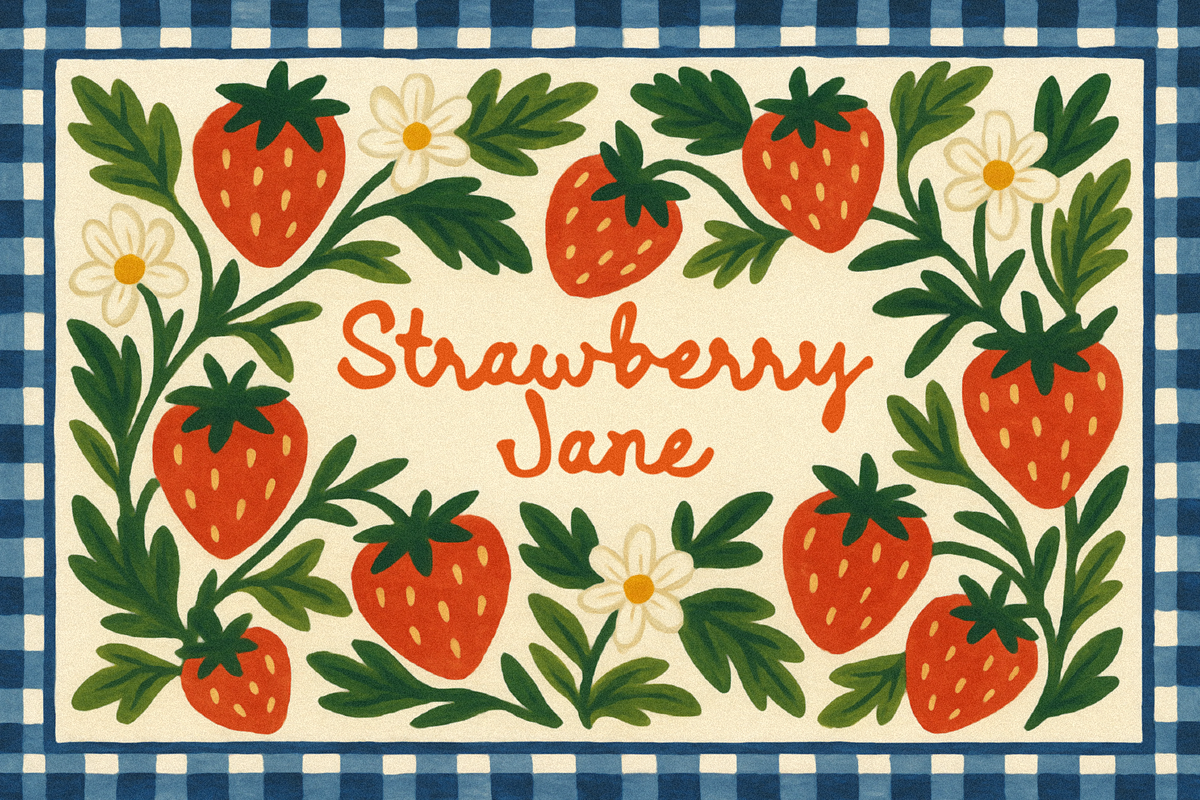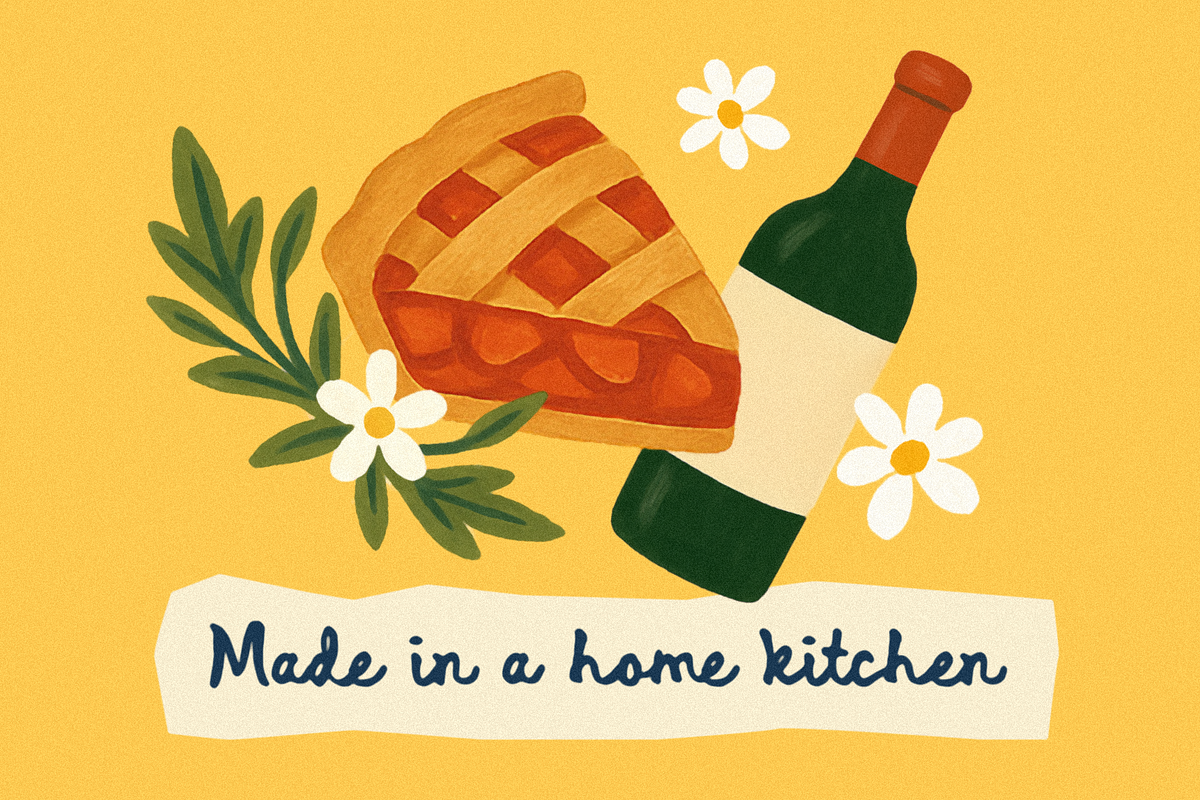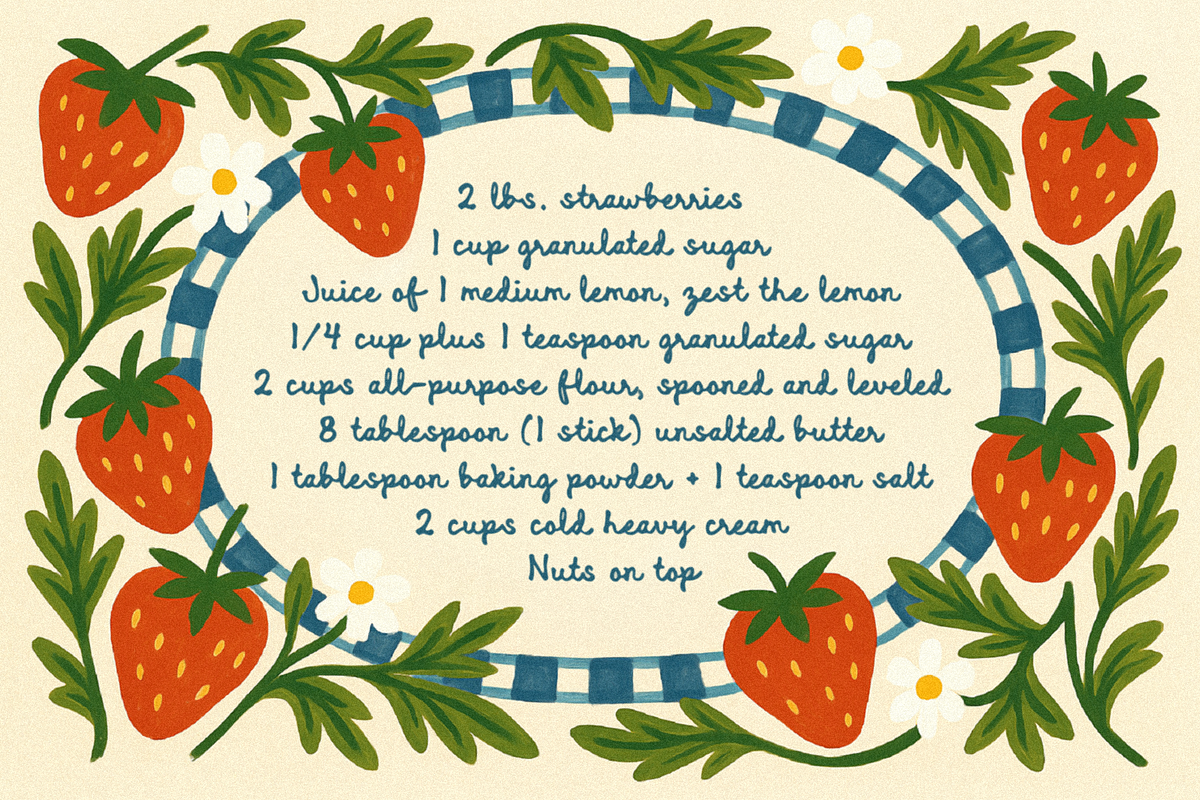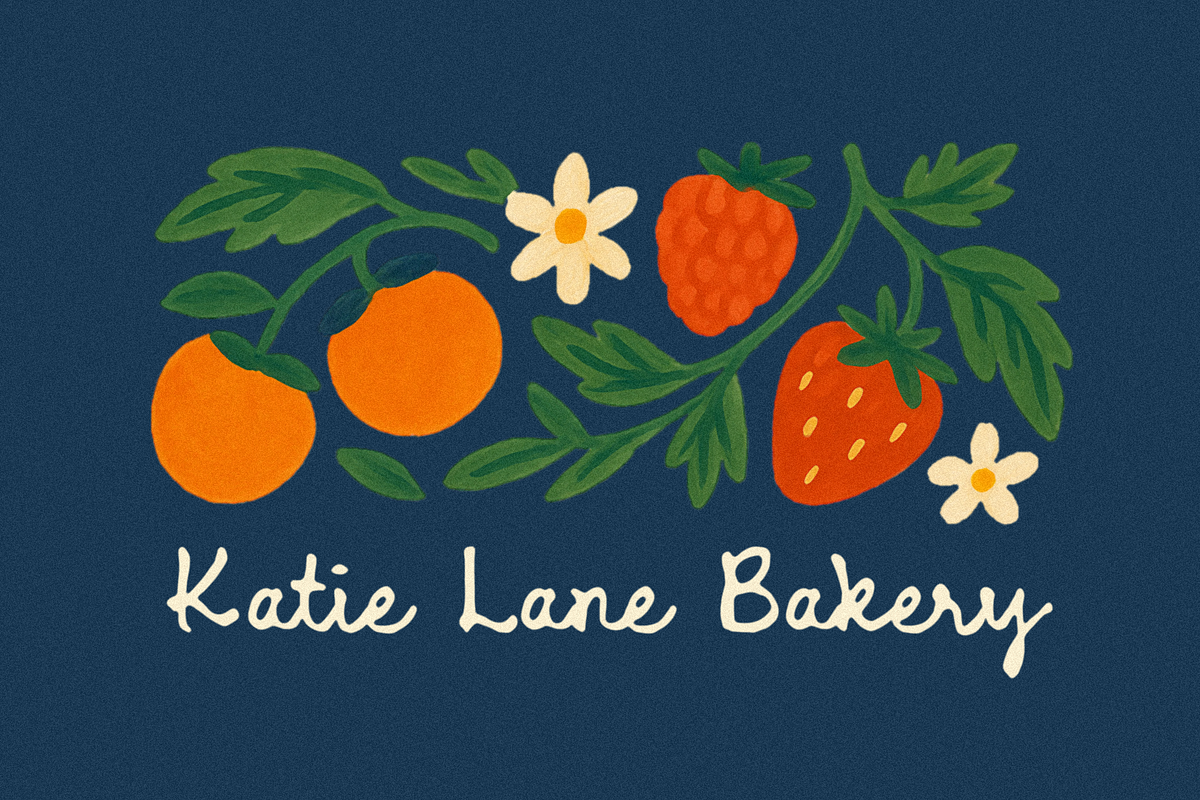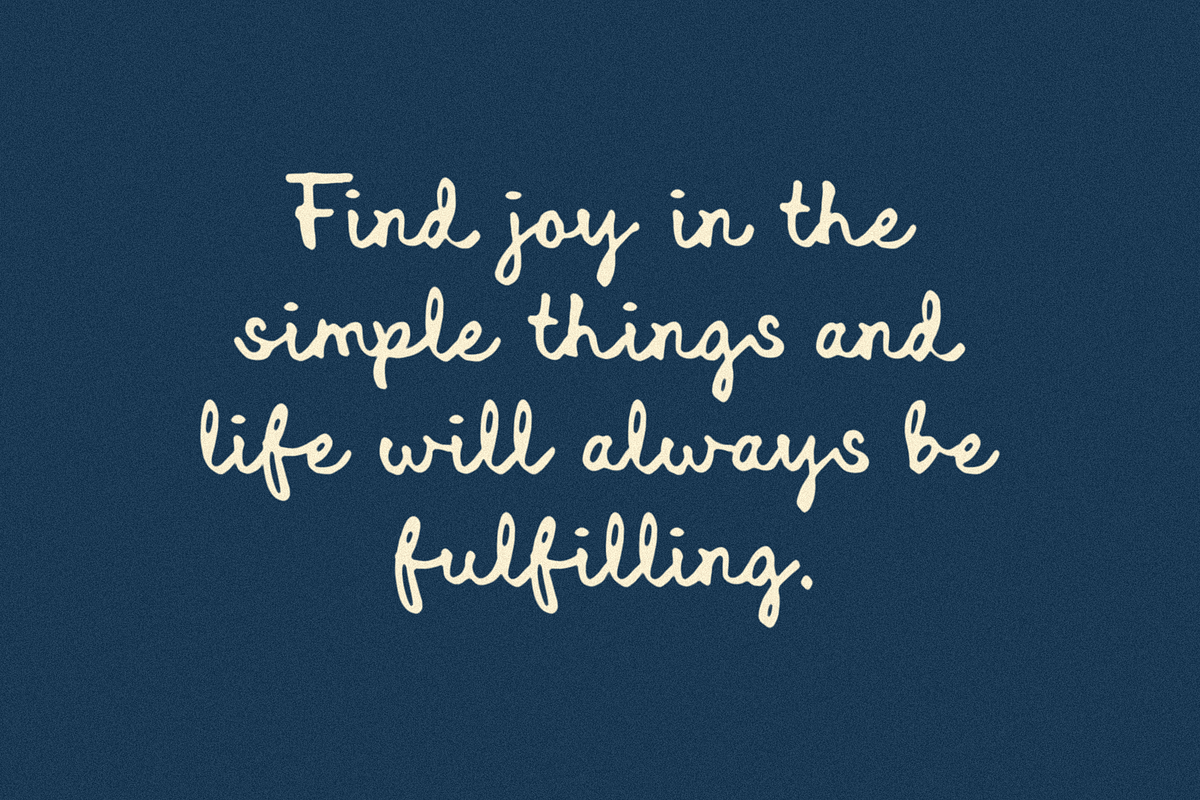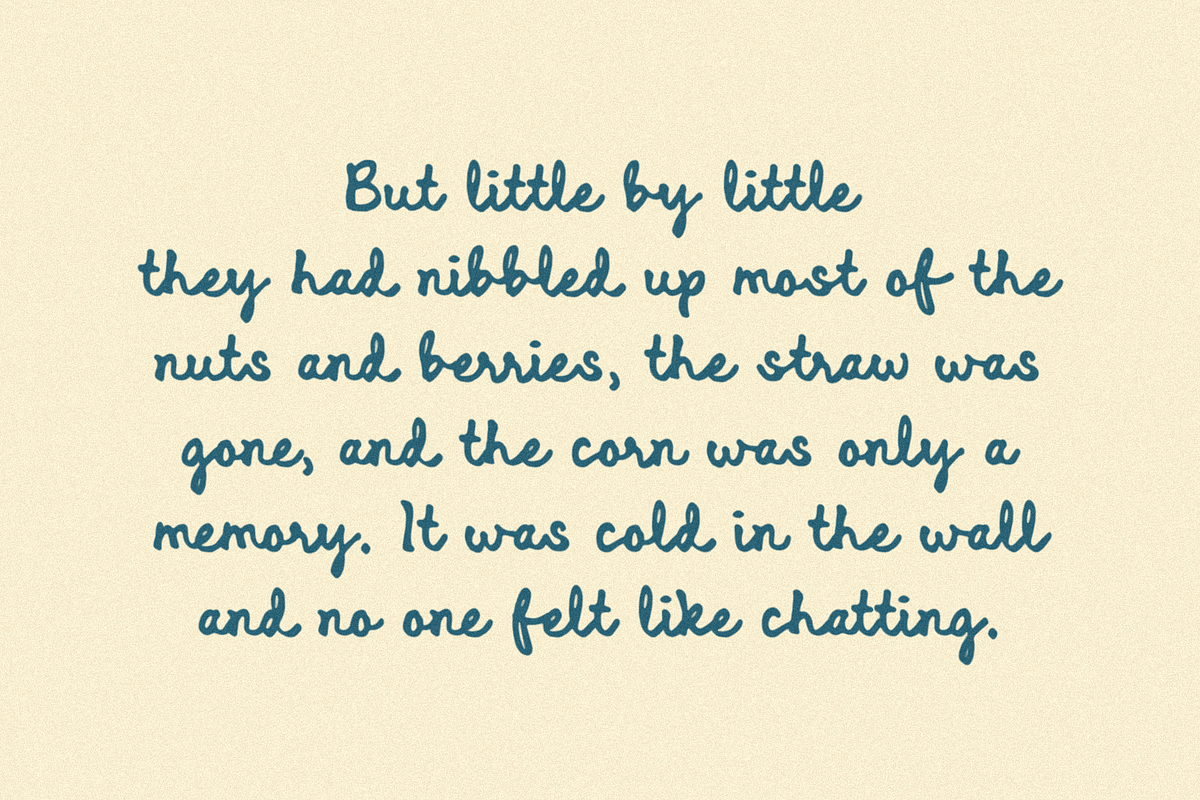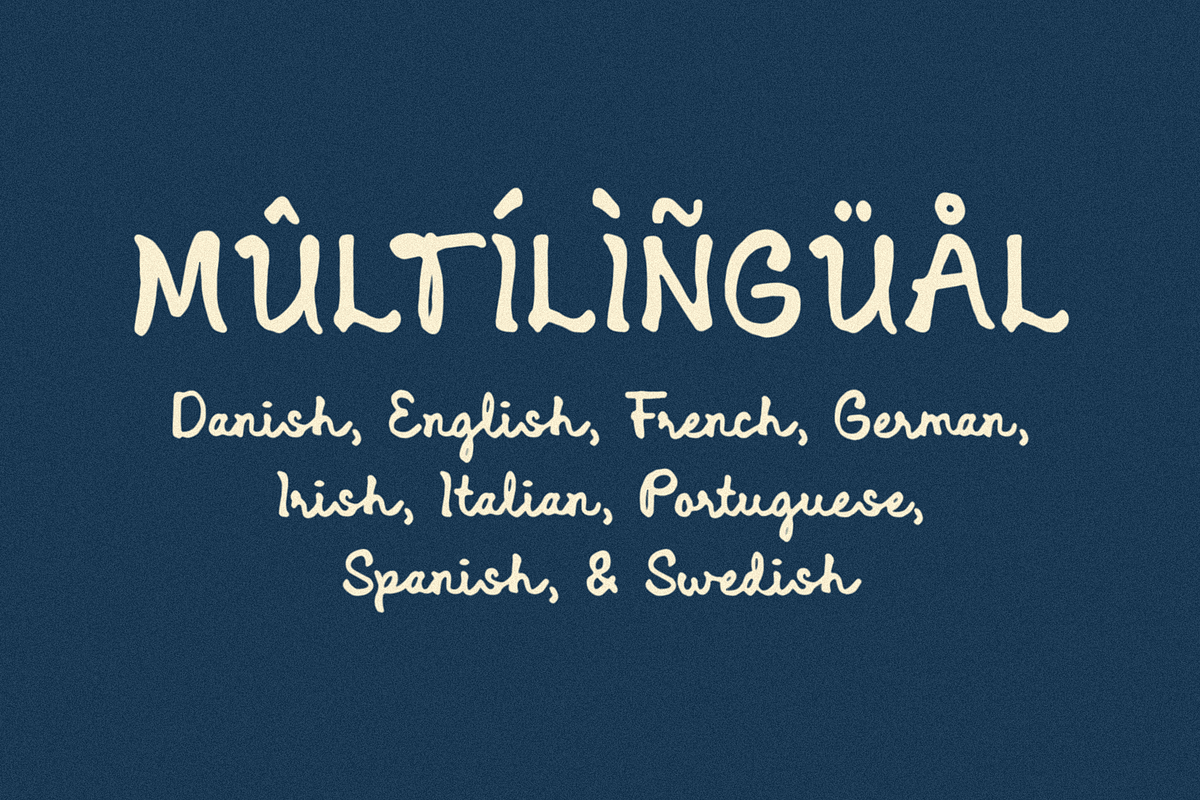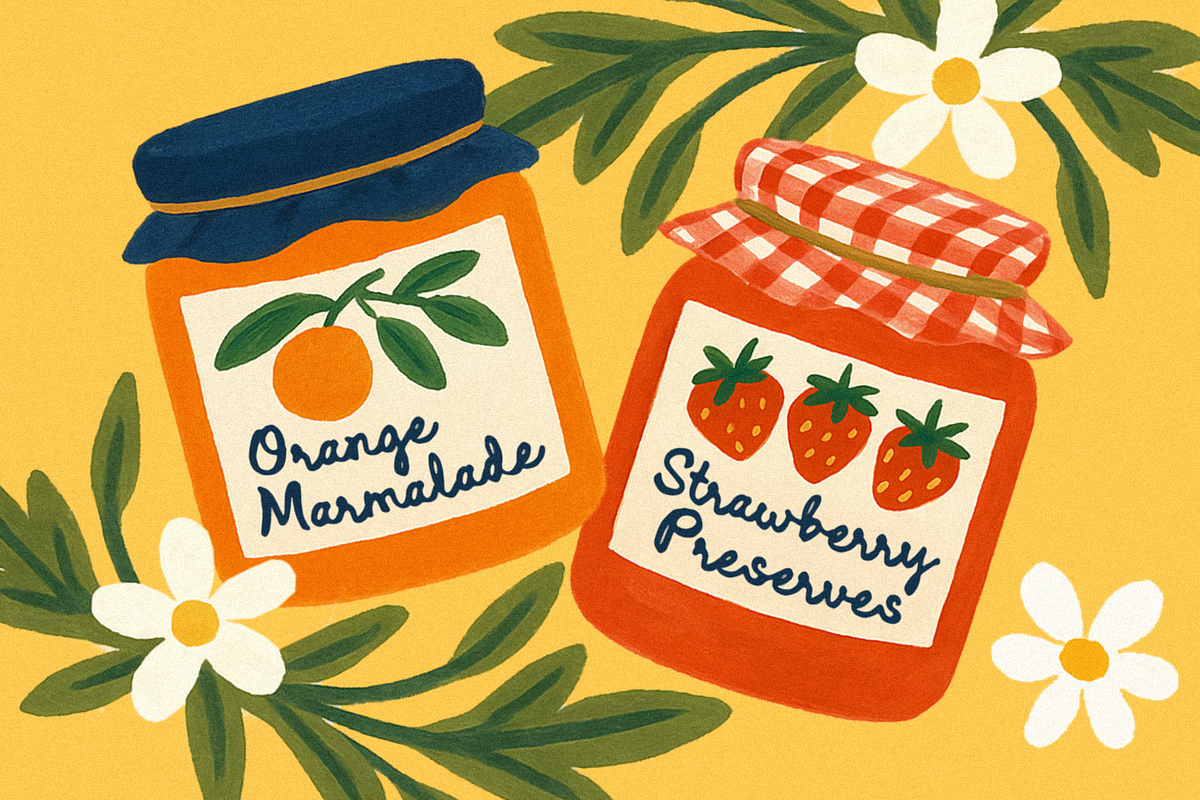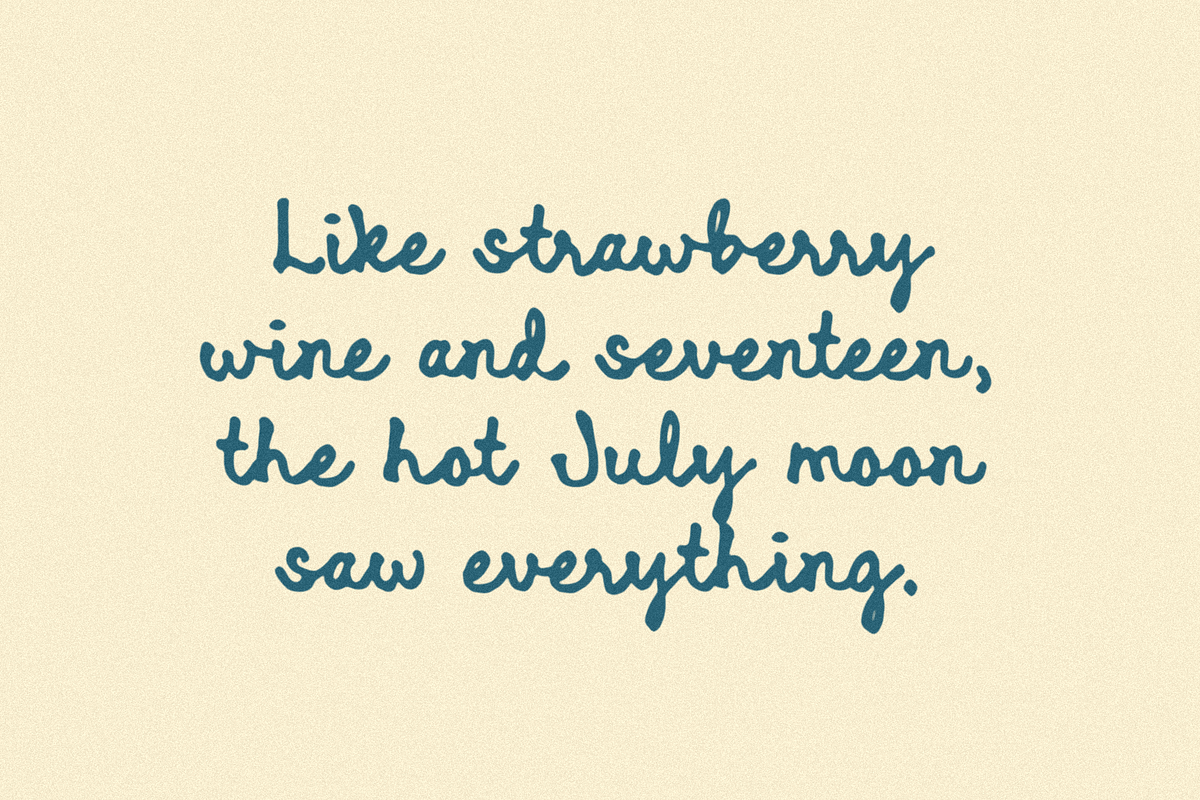
Strawberry Jane
STRAWBERRY JANE – A vintage, handcrafted 2-in-1 script font. Inspired by the sweetness of summer. Handcrafted by Bruised Goods.
- 185 Glyphs Total: Uppercase and Lowercase Characters, Numbers, Symbols, and Punctuation.
- 10+ Alternates & Ligatures
- Language Support: Danish, English, French, German, Irish, Italian, Portuguese, Spanish, Swedish, and Swiss German.